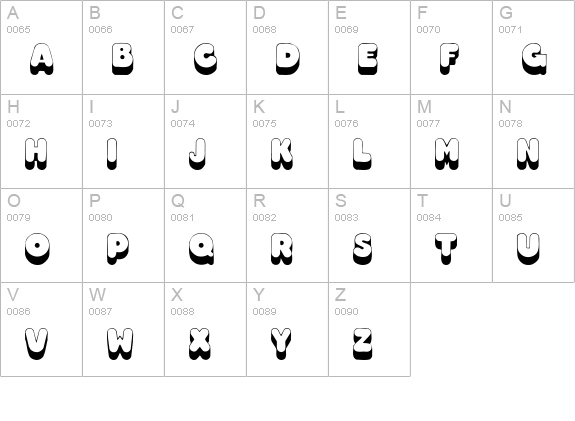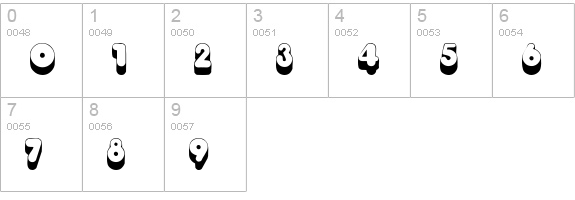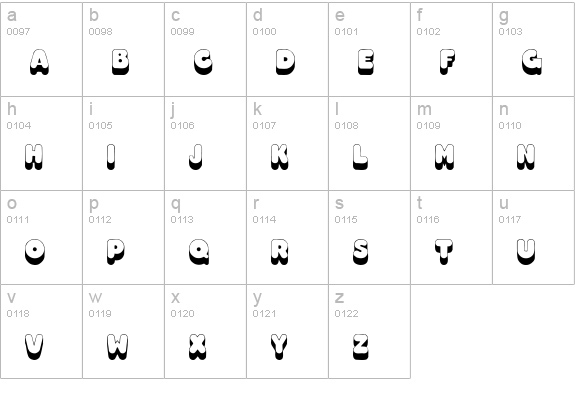
Boggie Font Details
Boggie font is a stylish and modern typeface that exudes creativity and uniqueness. With its bold and eye-catching design, Boggie font is perfect for making a statement in your projects. Its sleek lines and elegant curves make it a versatile choice for various design applications. The best part? Boggie font is completely free to download at FontsMarket.com. Whether you're working on a branding project, poster design, or any other creative endeavor, Boggie font will add a touch of sophistication and flair to your work. Don't miss out on this fantastic font that combines style and accessibility in one package. Download Boggie font today and elevate your designs to the next level!